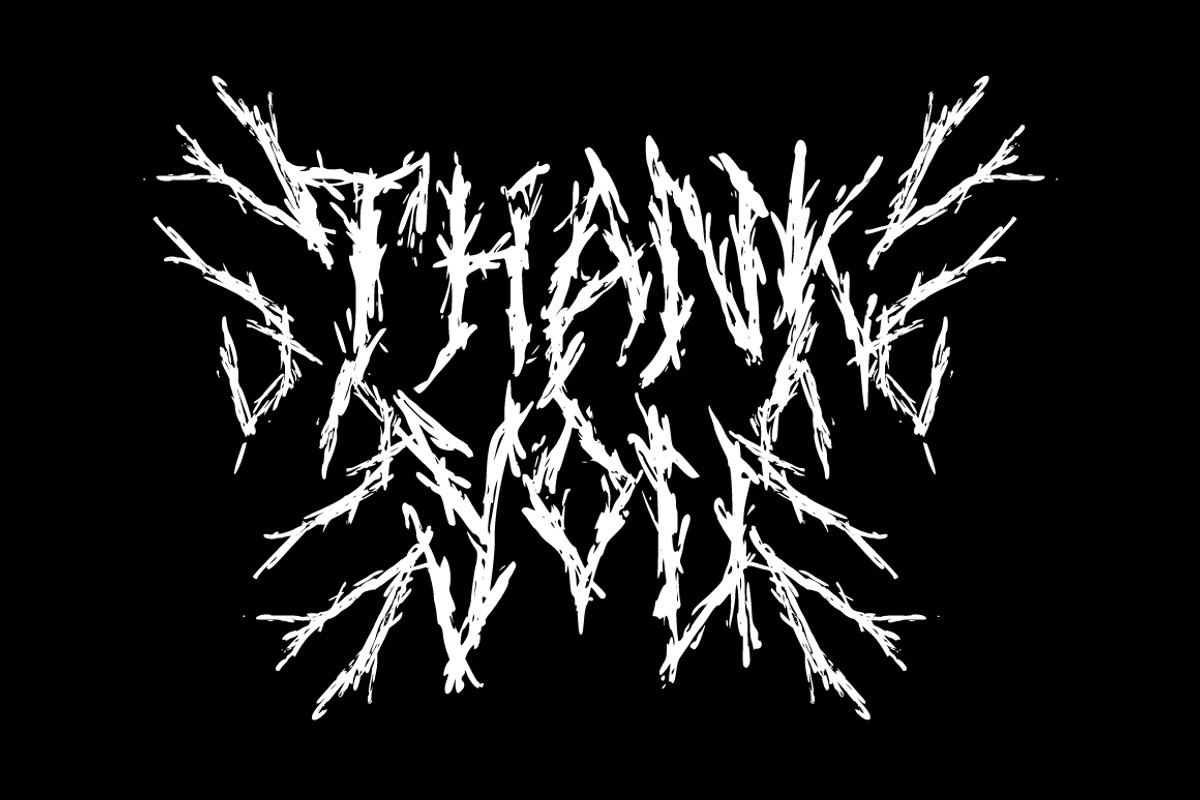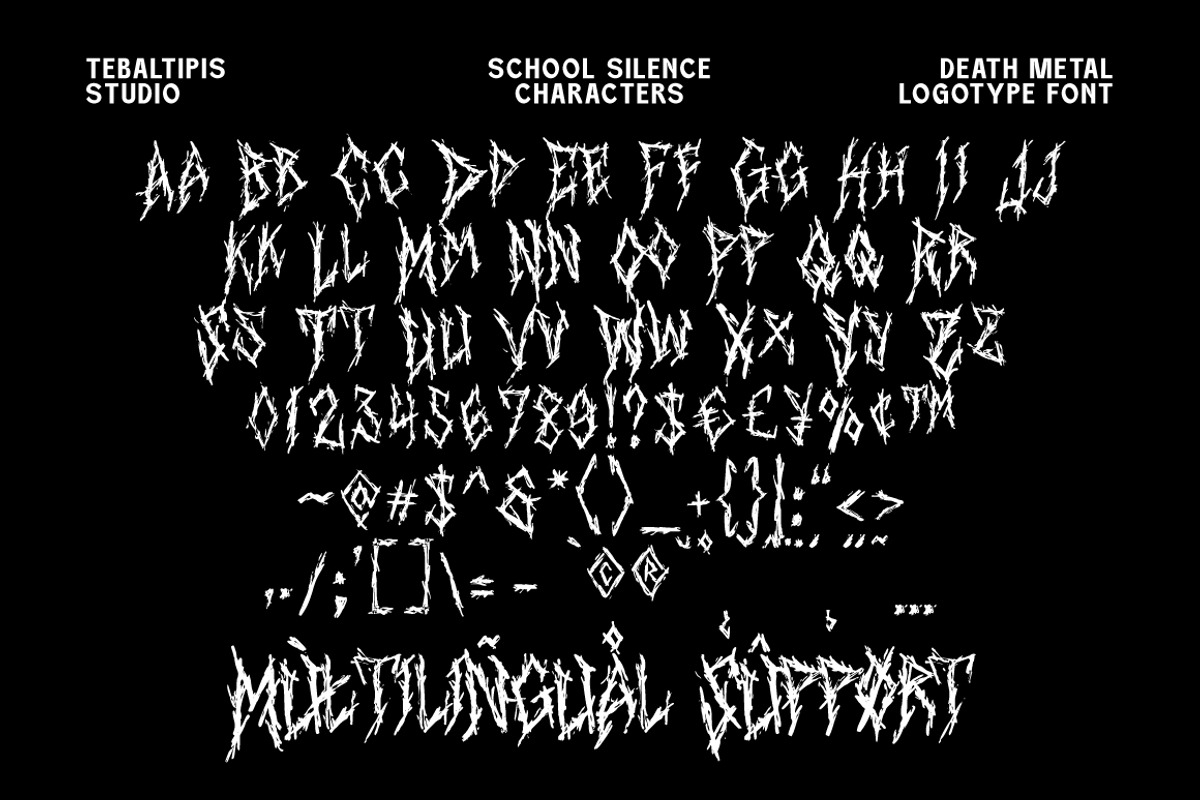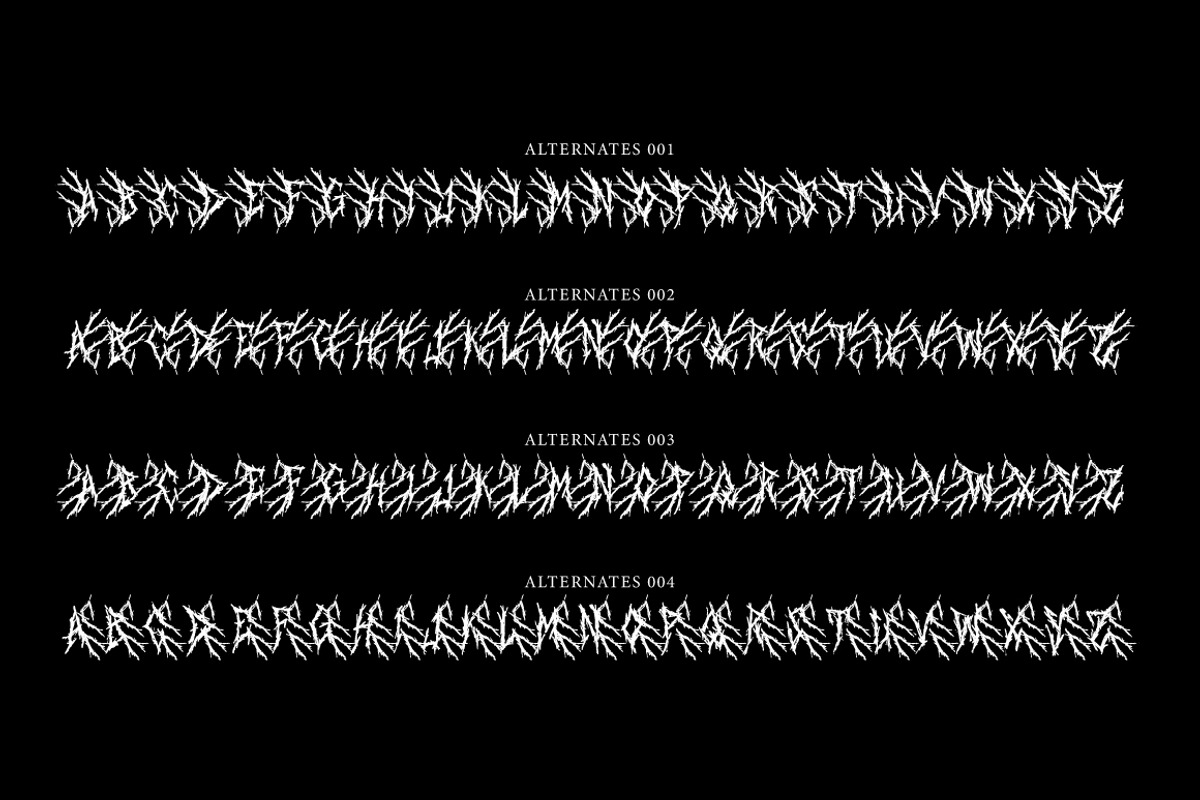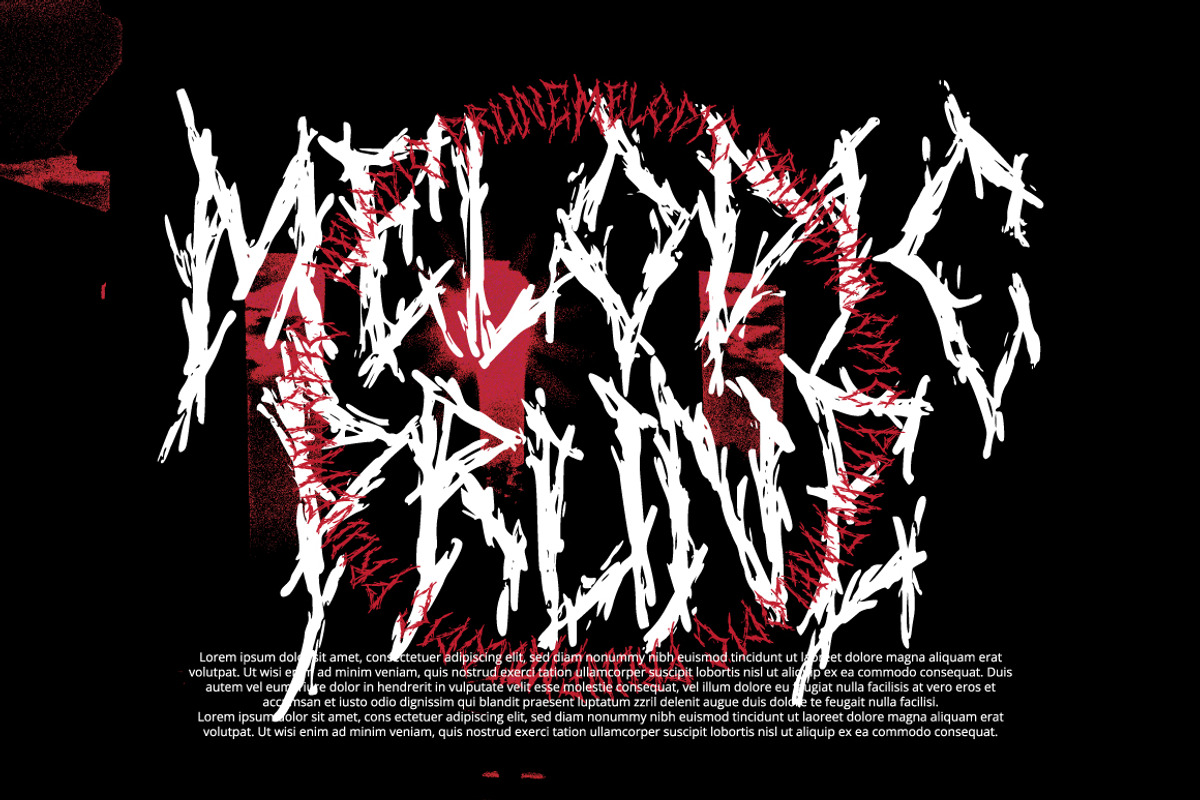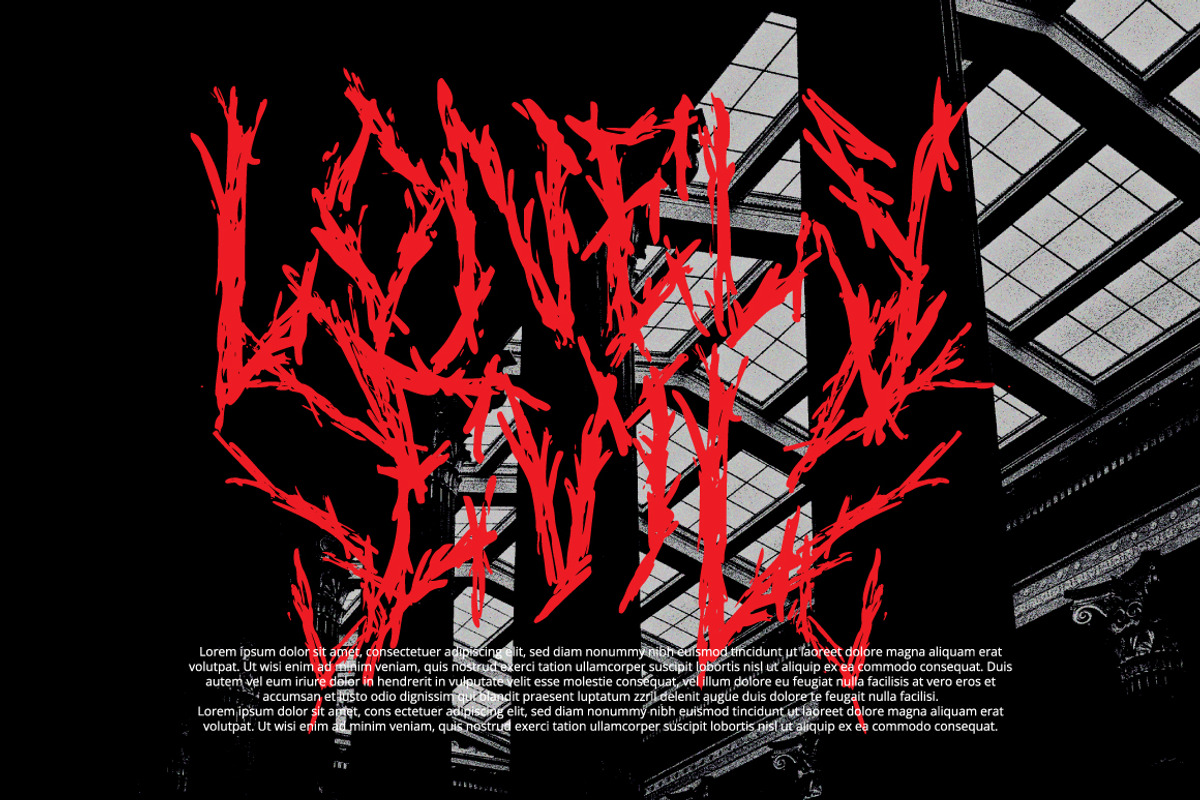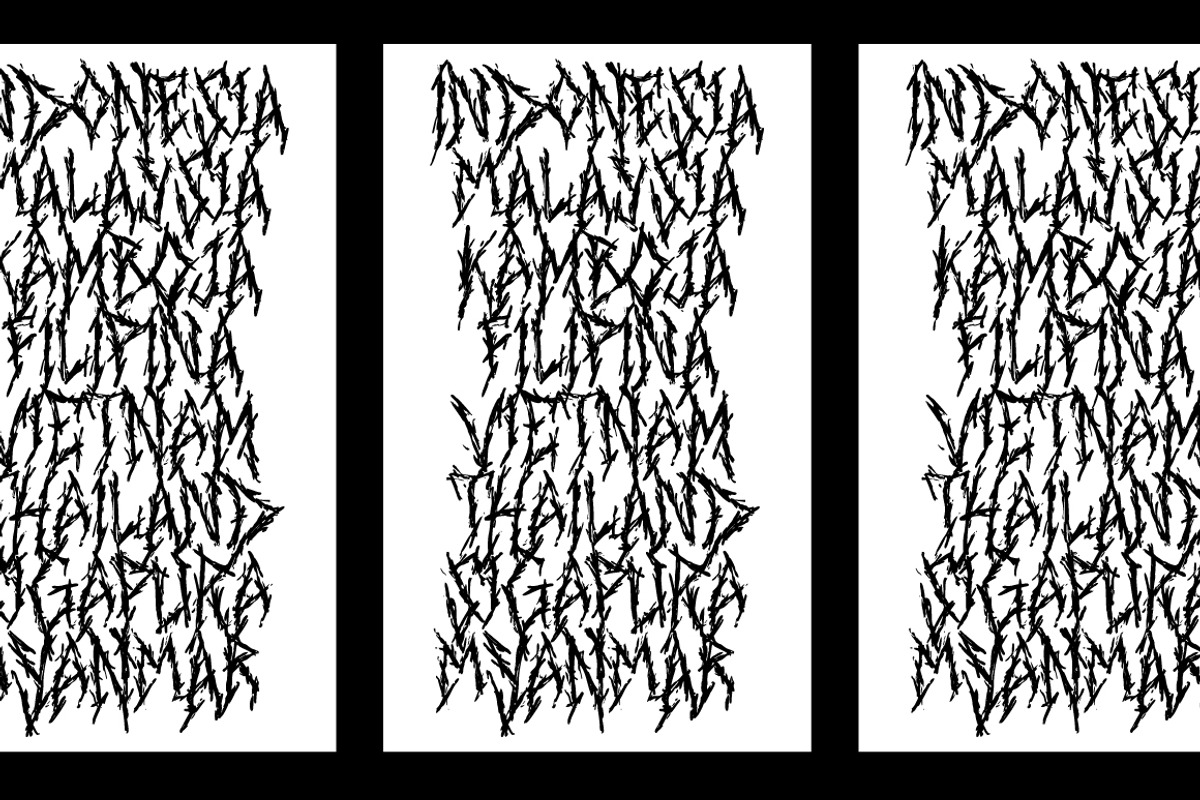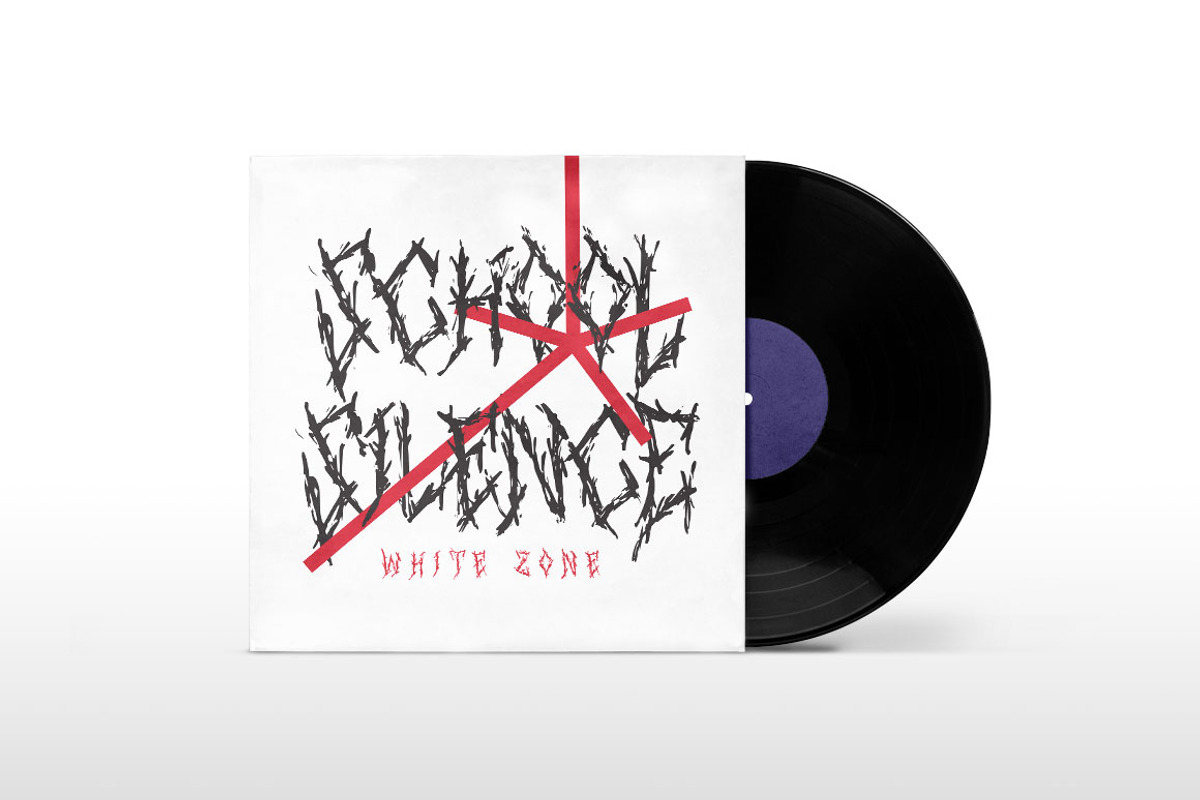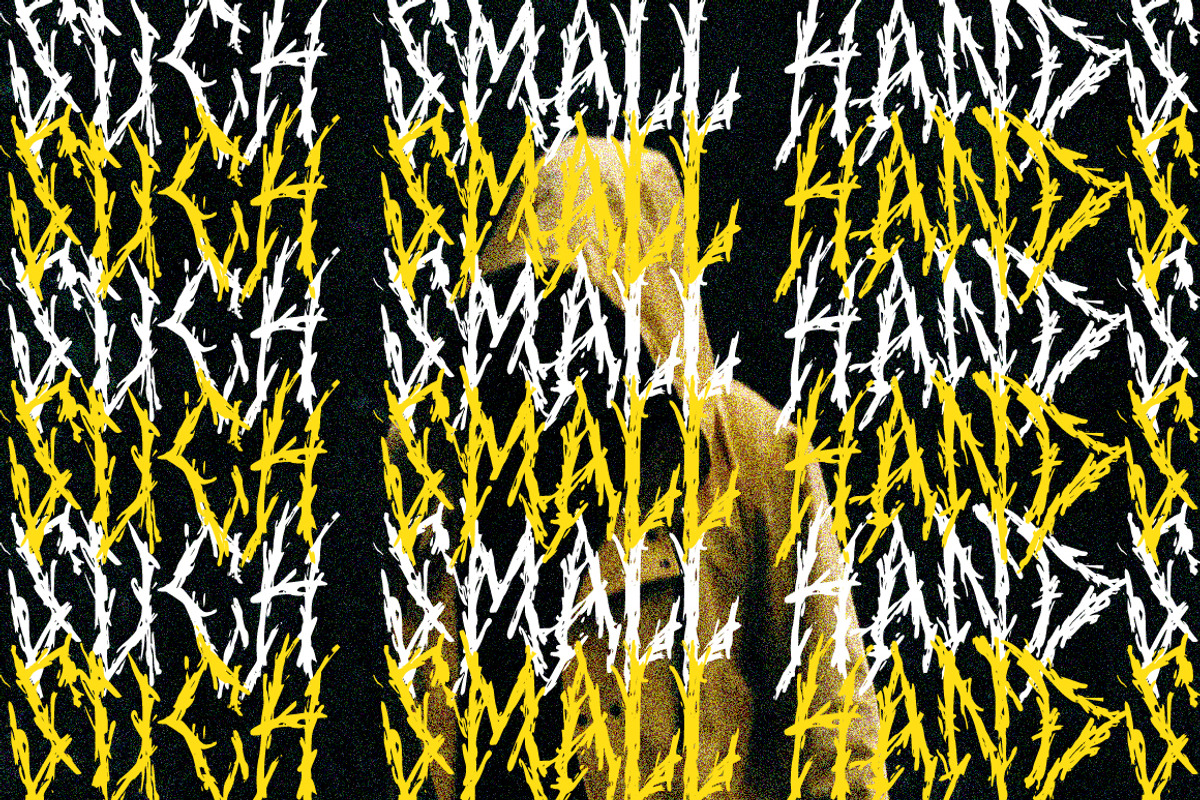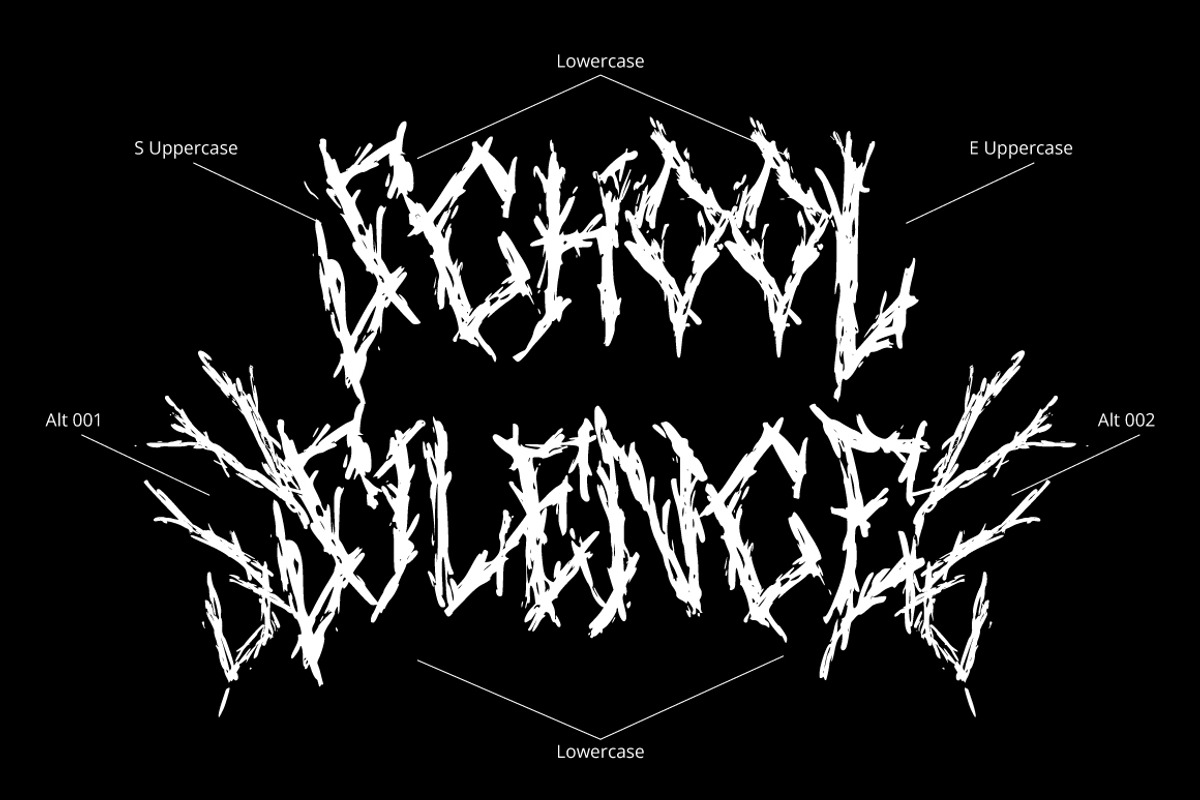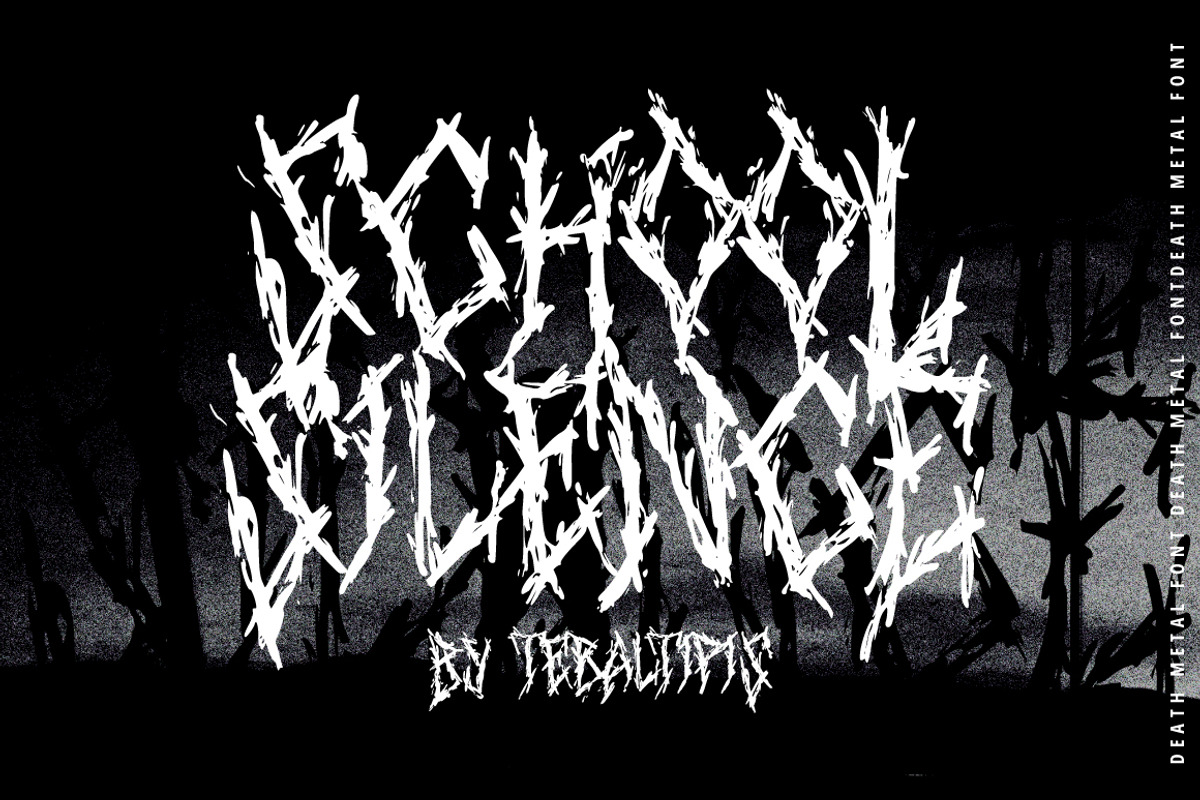
School Silence - Death Metal Font
School Silence is a cool alternative for you to easily create a logo for your Underground band or whatever. Using alternate front and ending letters brings the font to life, It comes with a basic character set and a small group of symbols and signs often used in the extreme music sector – the classics of Death- and Blackmetal like pentagram drops, roots, spikes and more.